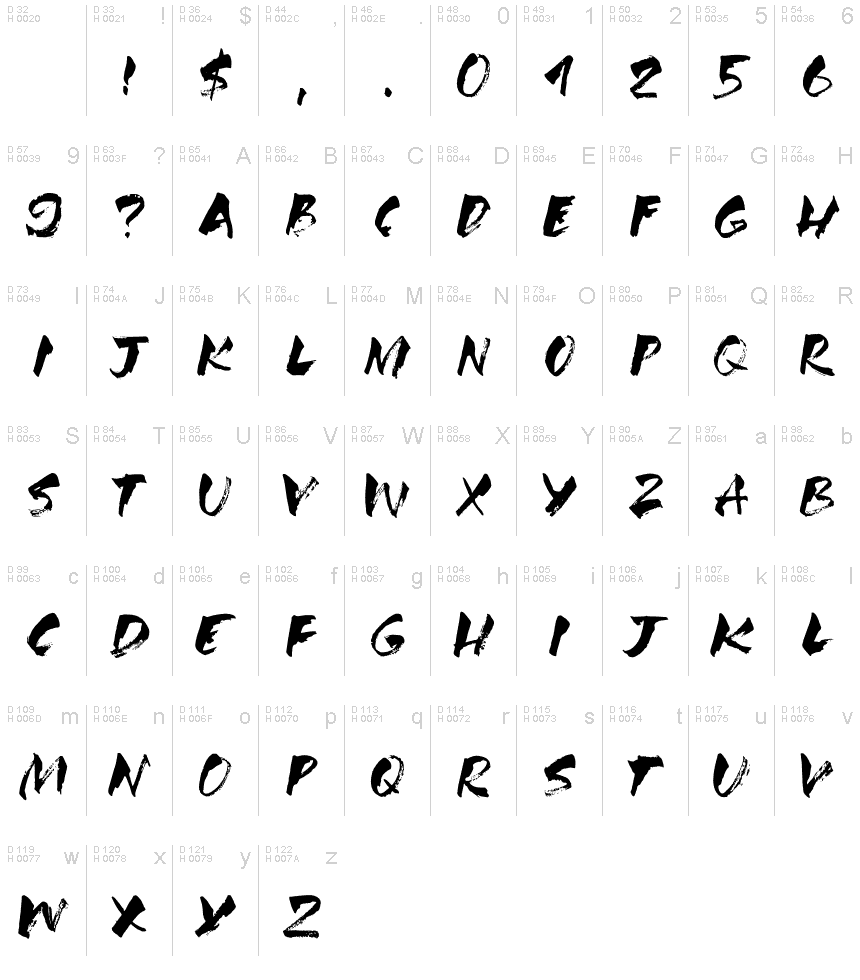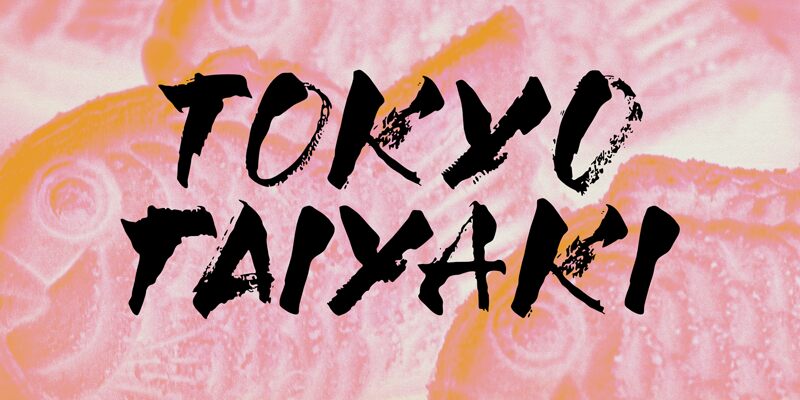
Tokyo Taiyaki DEMO Regular
Tokyo Taiyaki, designed by Hanoded, is a bold brush font that brims with energy and character. Capturing the essence of hand-painted signage found in the bustling streets of Tokyo, this typeface exudes an aesthetic that is both raw and refined. The thick strokes and textured edges give it a presence that commands attention, making it an ideal choice for impactful headlines and branding that seeks to leave a lasting impression.
The expressive quality of Tokyo Taiyaki lies in its unapologetically bold weight, which works harmoniously with the organic variability inherent in brush-style fonts. This combination delivers a dynamic visual rhythm, ensuring that each word stands out with an individual flair.
Whether used in creative projects such as poster designs, edgy apparel graphics or compelling digital content, Tokyo Taiyaki offers designers a versatile tool to inject authenticity and attitude into their work. Its strong visual appeal lends itself well to concepts that aim for a modern touch with hints of traditional craftsmanship.